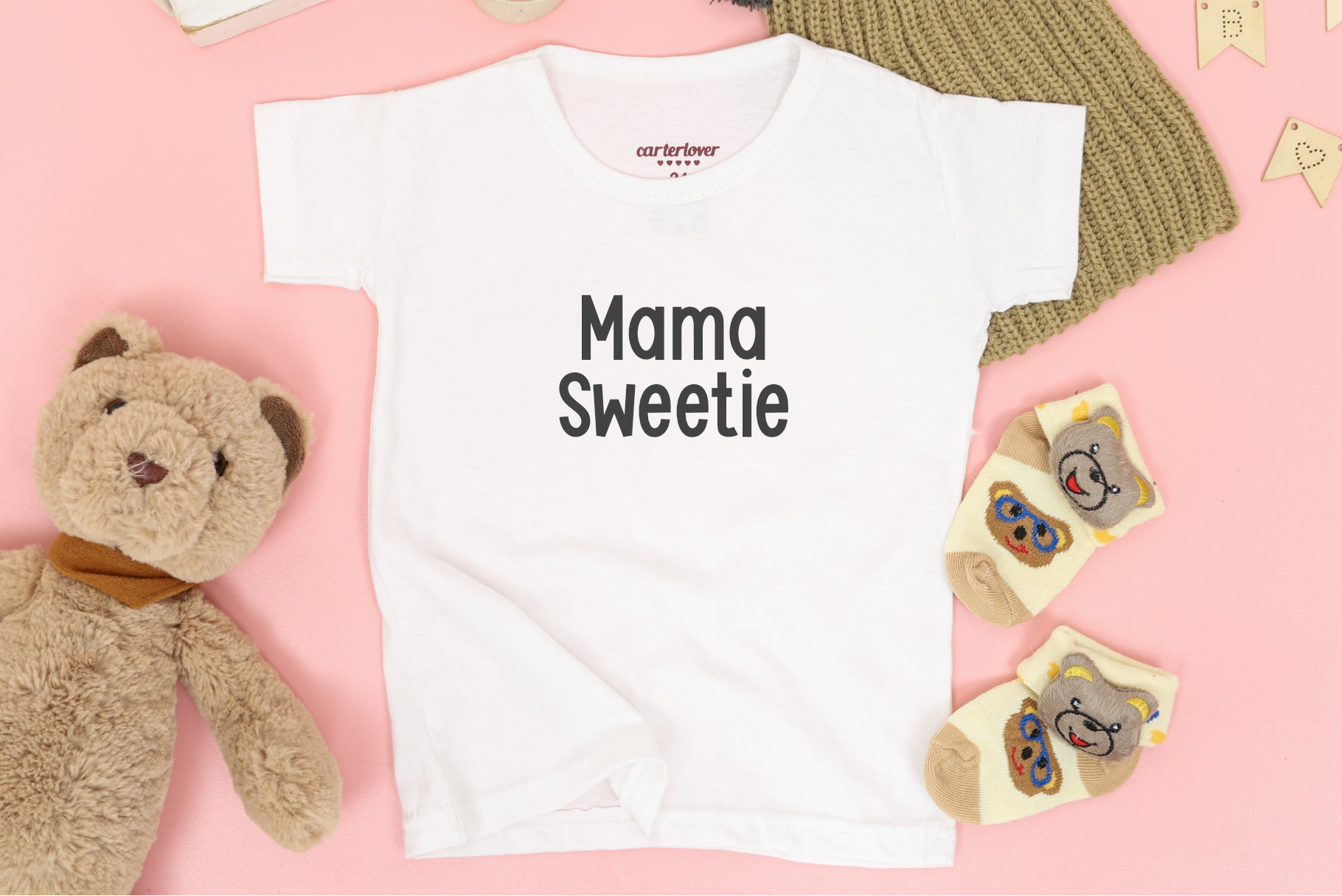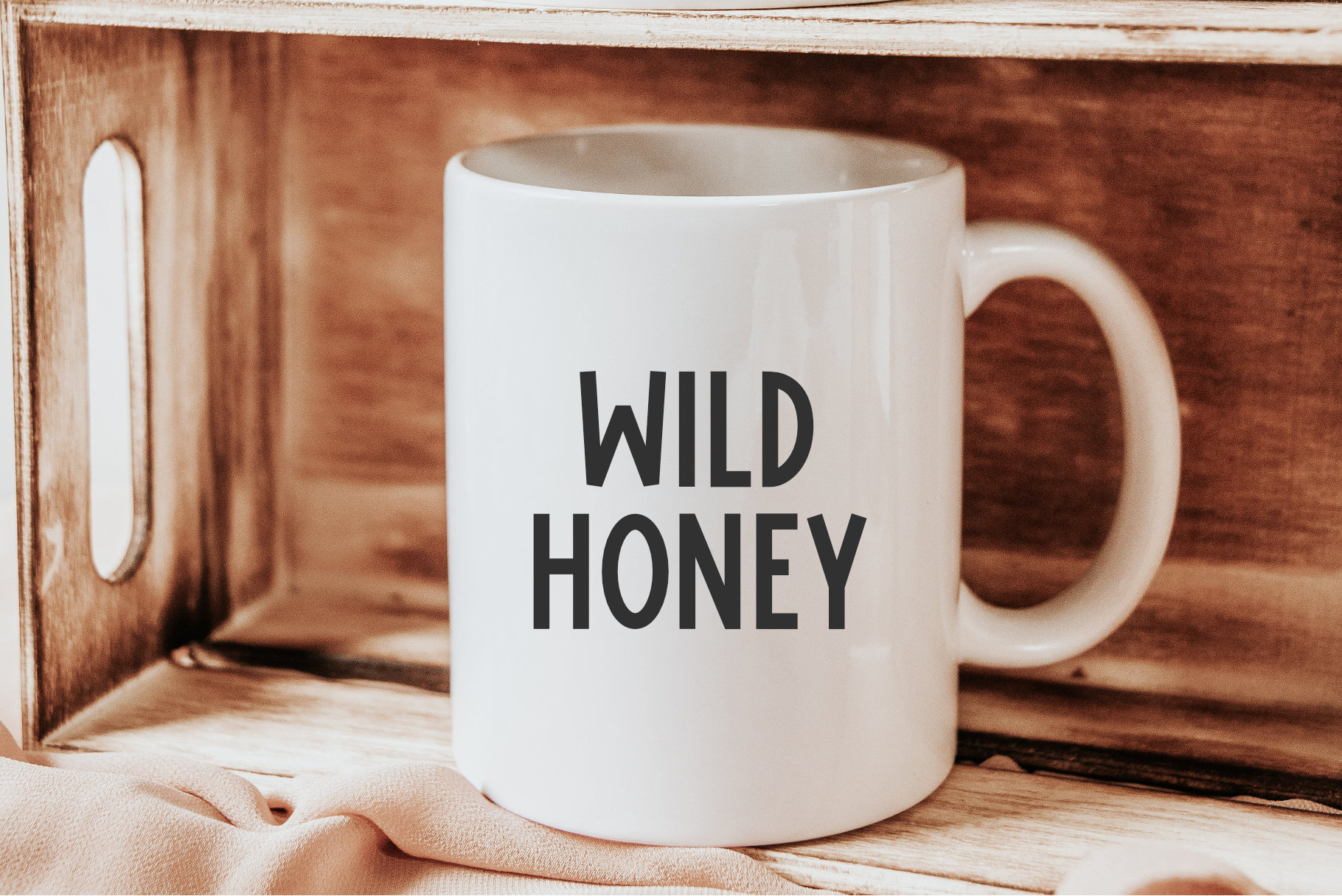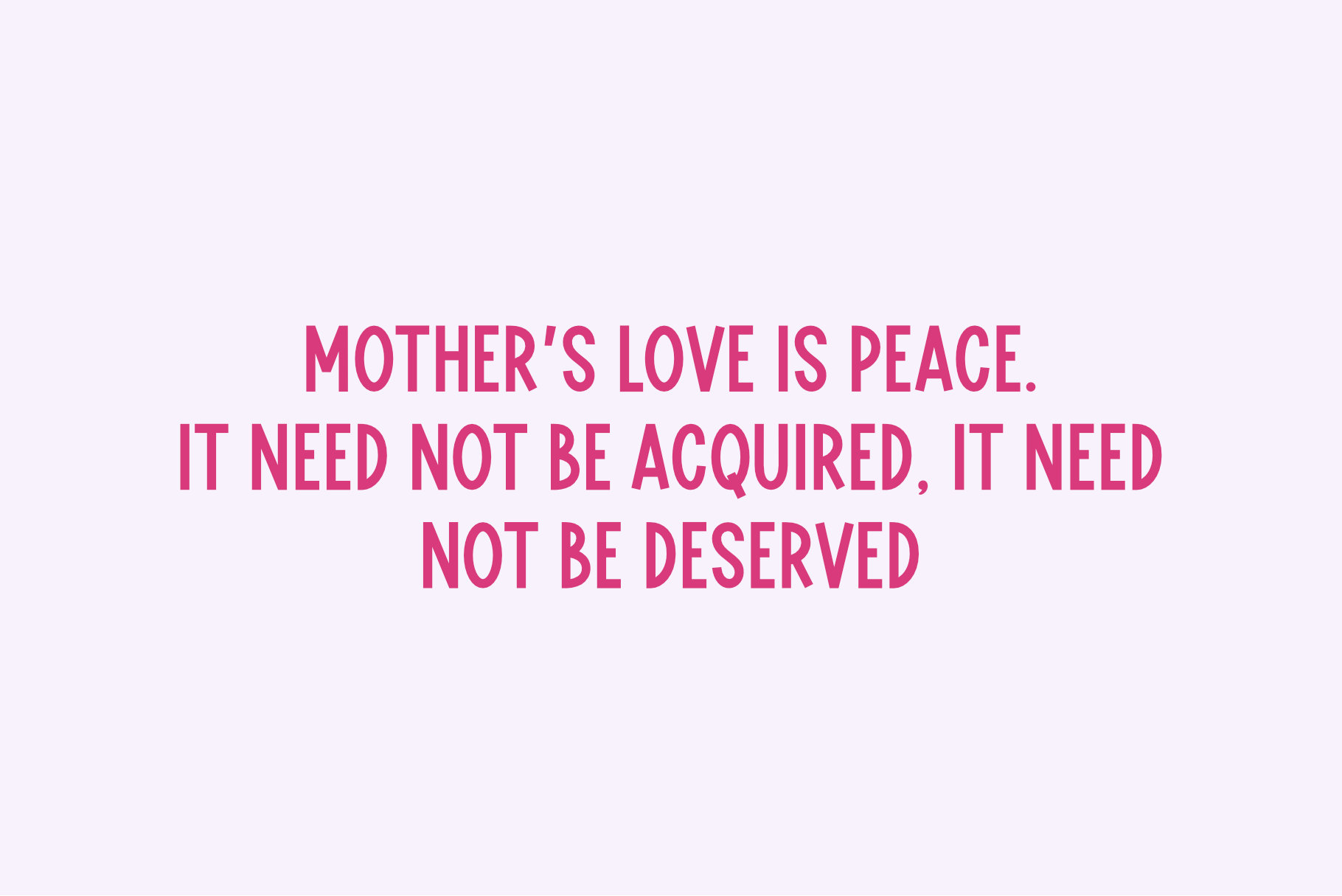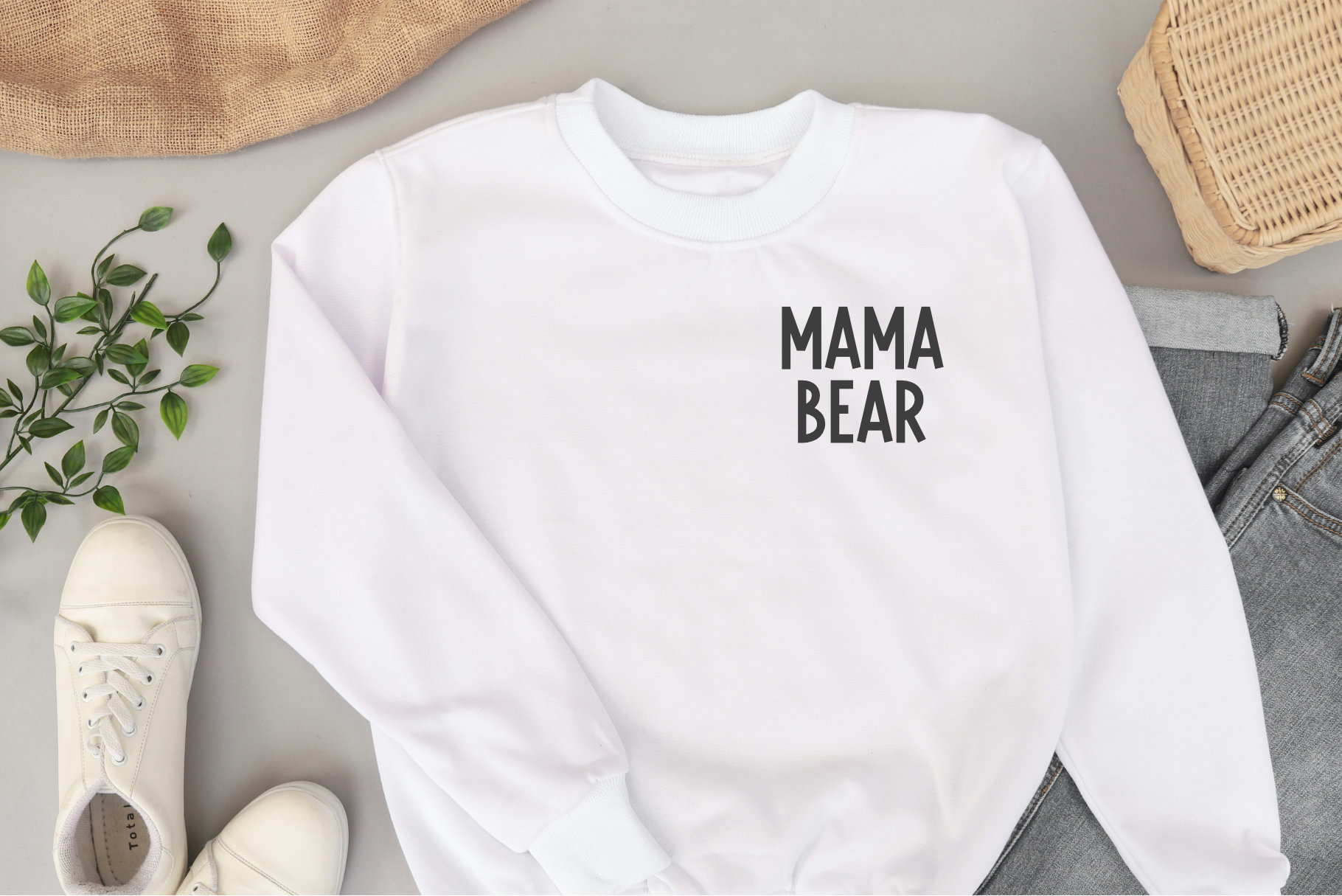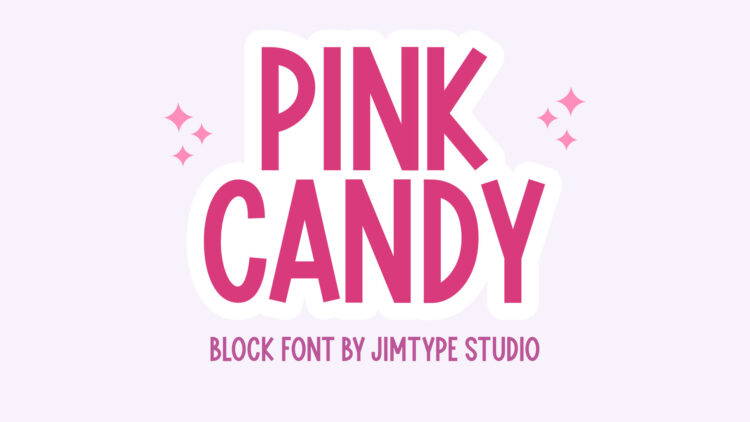
Pink Candy – Playful Font
Meet Pink Candy! a playful, bouncy, and cute font perfect for standout quotes, playful branding, children’s books, quirky greeting cards, and more! Its charming and warm character adds a unique touch to your designs, whether for short phrases or longer paragraphs like in storybooks. Bring your projects to life with Pink Candy!
Current Language Support :
English, French, Friulian, Galician, German (Switzerland), Low German, Luo, Luxembourgish, Norwegian Bokmål, Norwegian Nynorsk, Portuguese, Swedish, Swiss German.